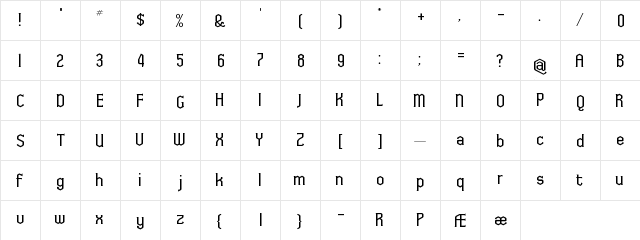
Juliette Cloned Regular
| Designer | mvstdone |
| Copyright | Copyright mvstdone 2010 Juliette Cloned is based on Juliette by intaglio http://fontstruct.fontshop.com/fontstructors/intaglio) |
Design Context for Juliette Cloned Typeface
Juliette Cloned takes a measured approach to typography — its balanced proportions and neutral character make it a reliable workhorse for both digital and print work.